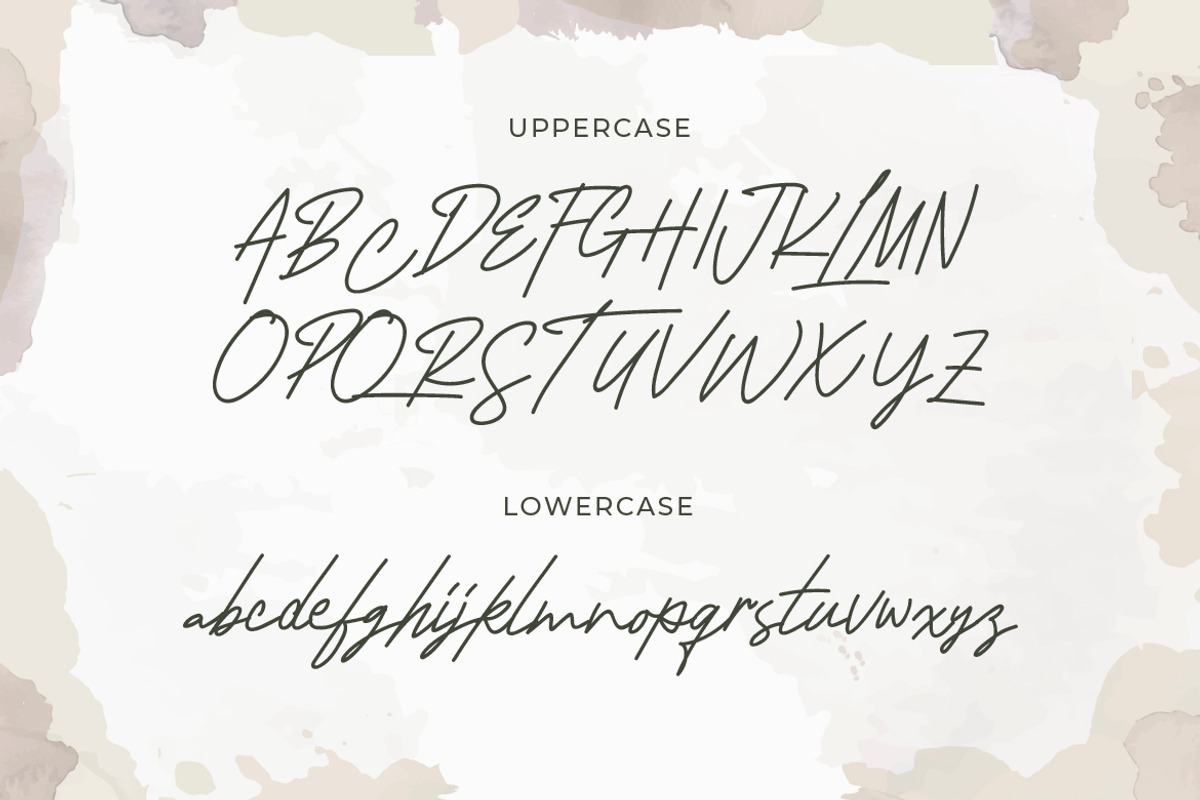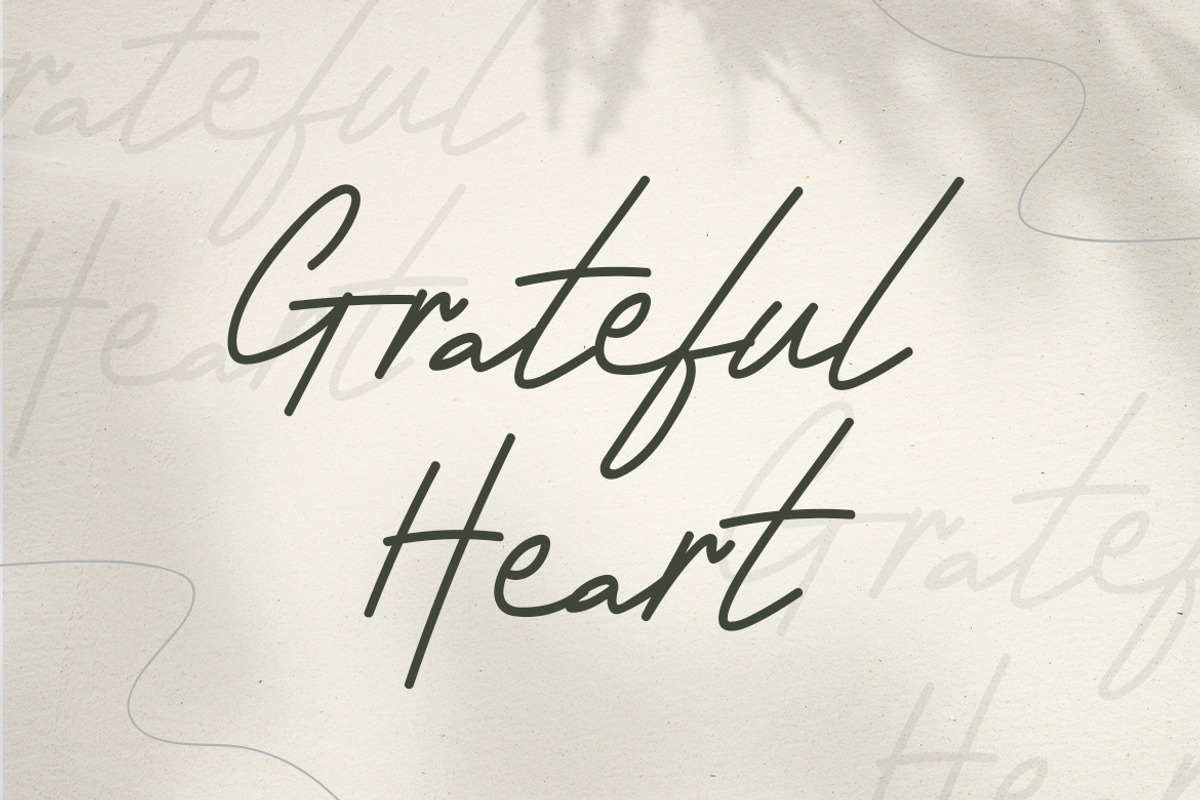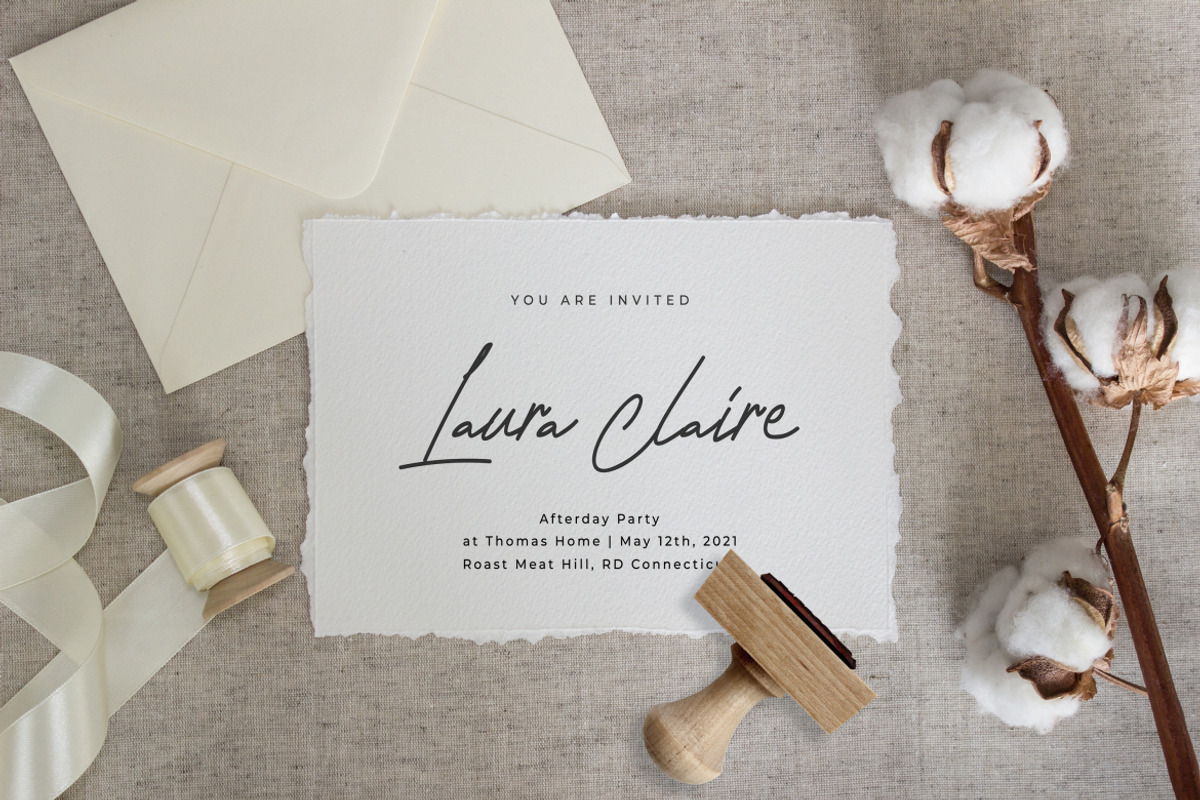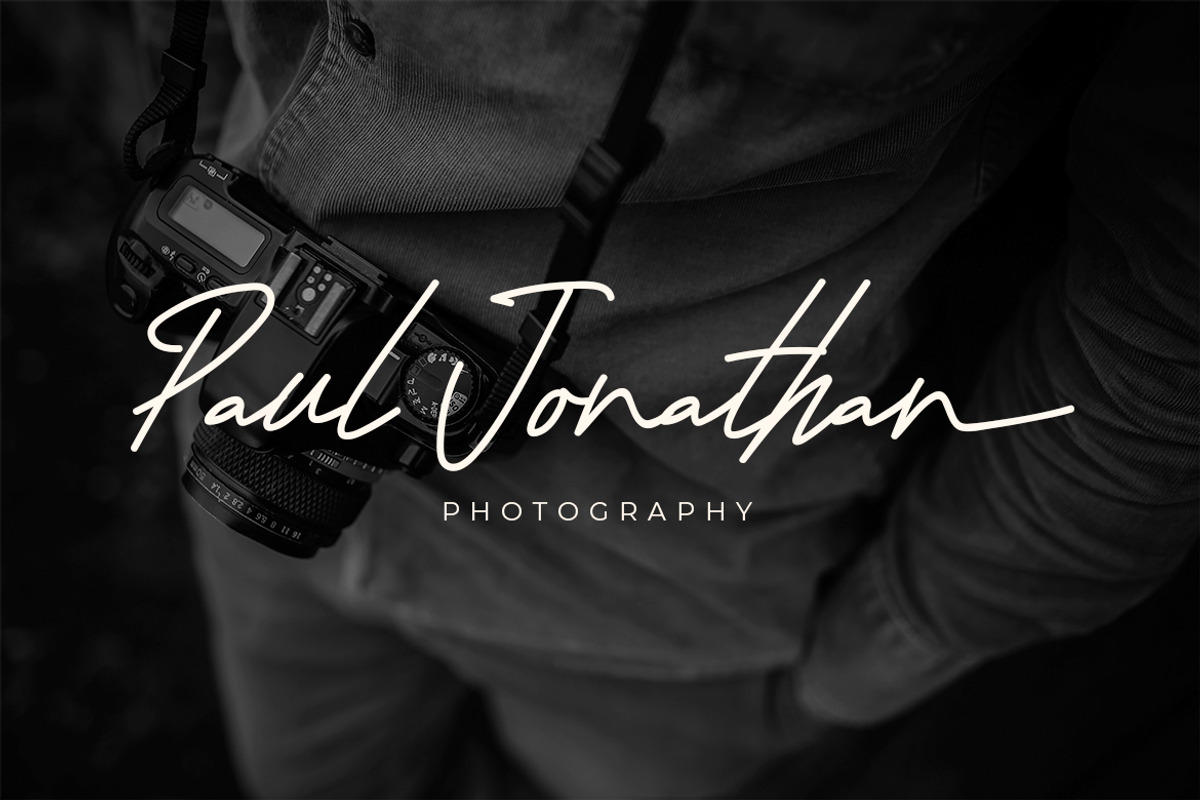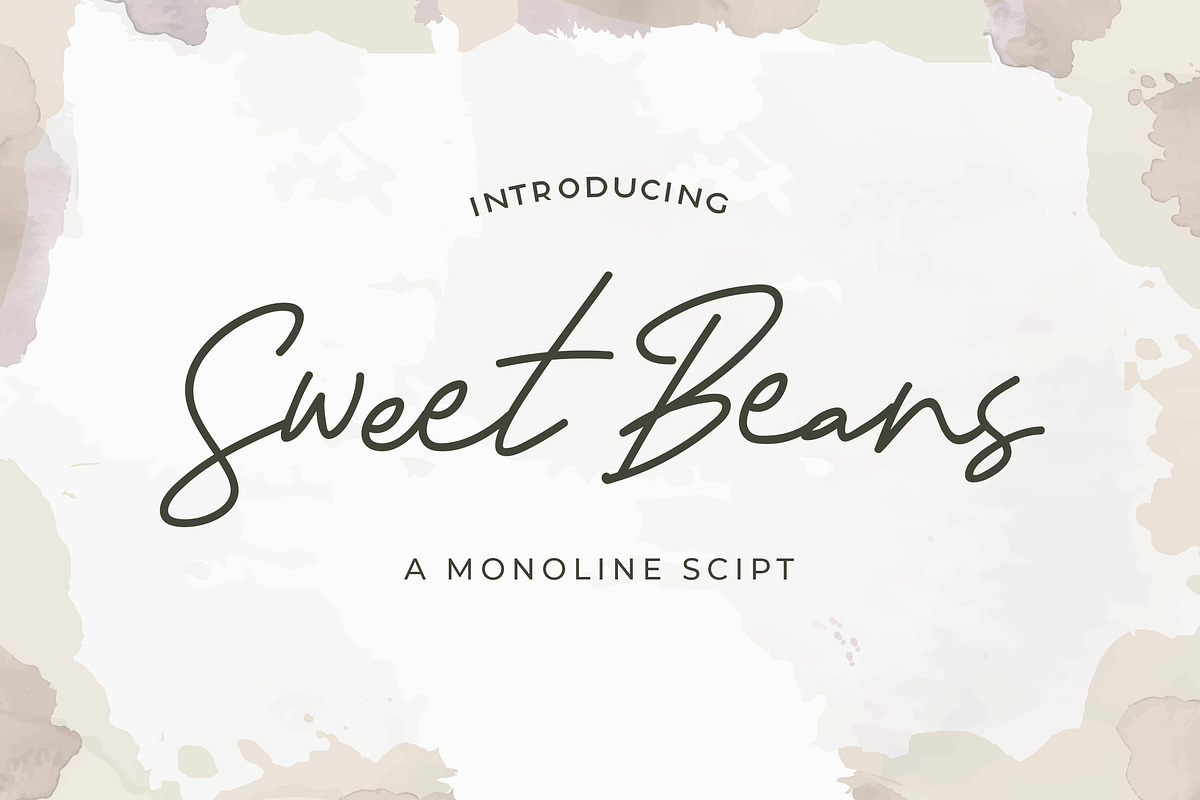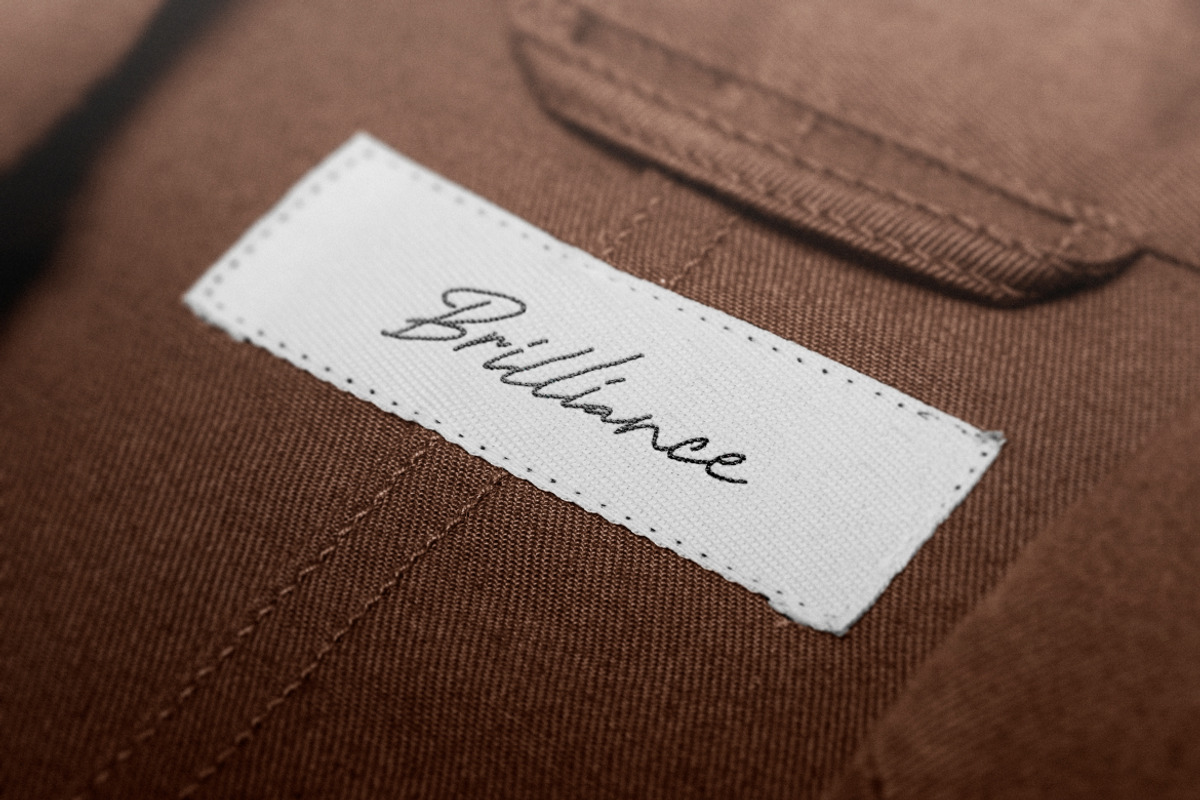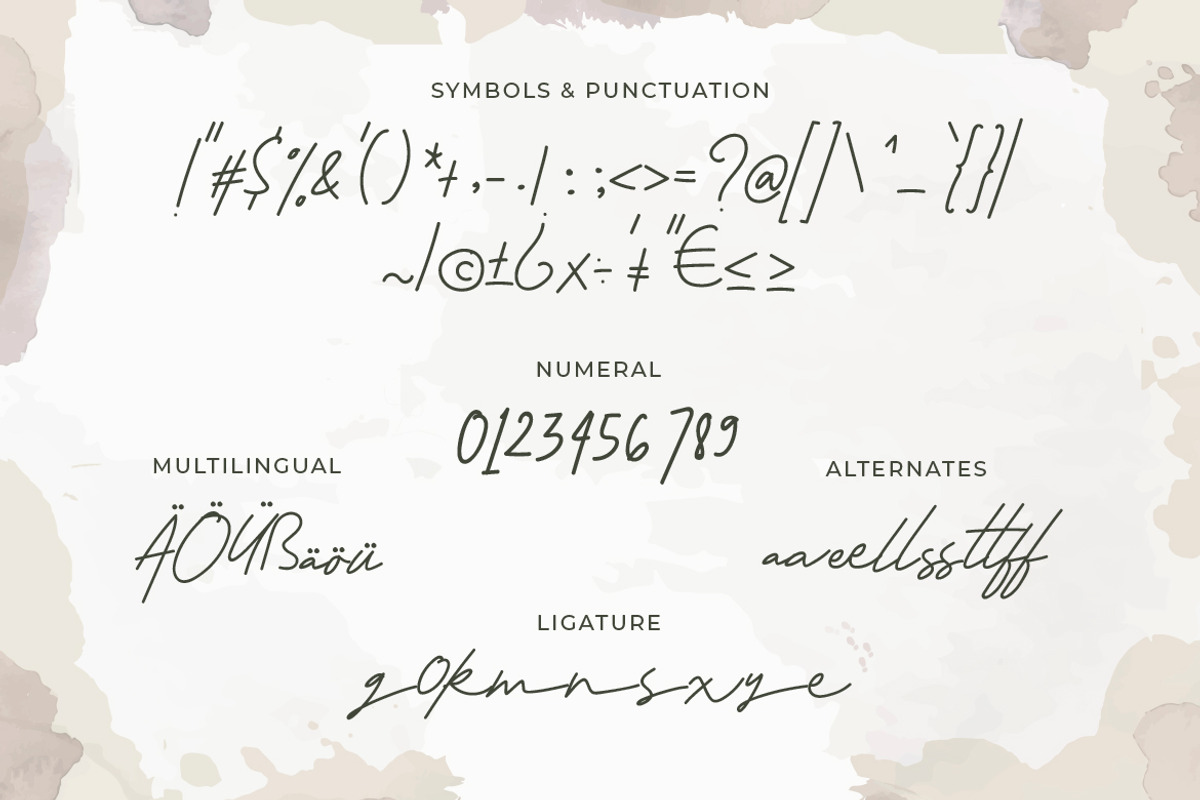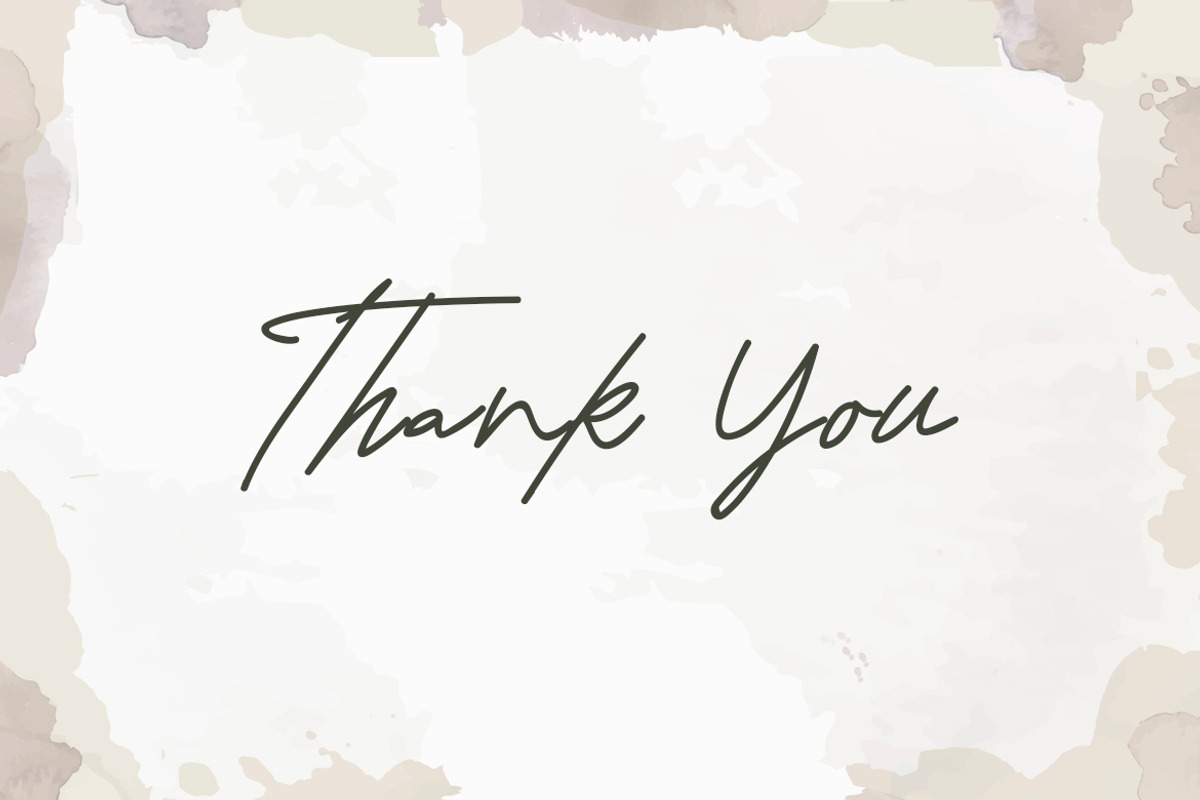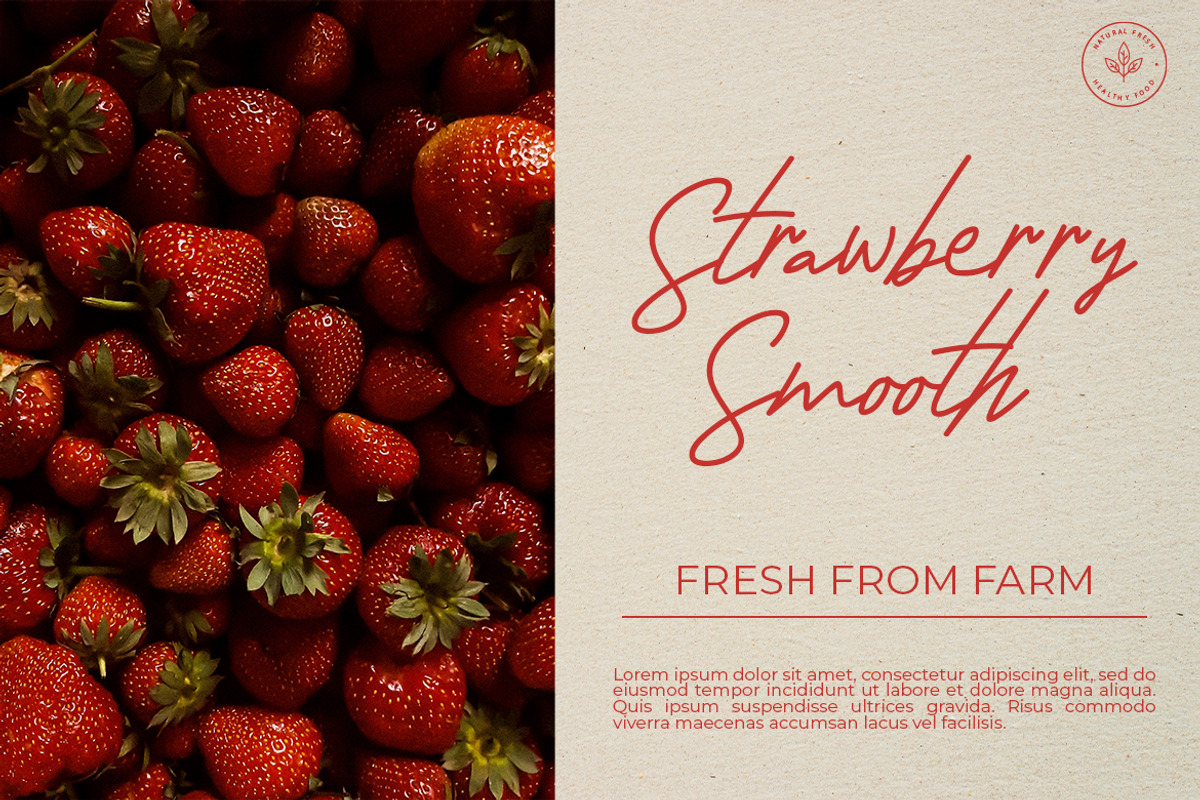
Sweet Beans - Monoline Script
Sweet Beans is a casual monoline script font. It maintains its classy calligraphic influences while feeling contemporary and fresh. This versatility will appeal to a wide range of crafty ideas, from letterheads and titles, to stationery.
– Uppercase – Lowercase – Symbols & Punctuation – Numeral – Alternates – Ligature – Multilingual Support